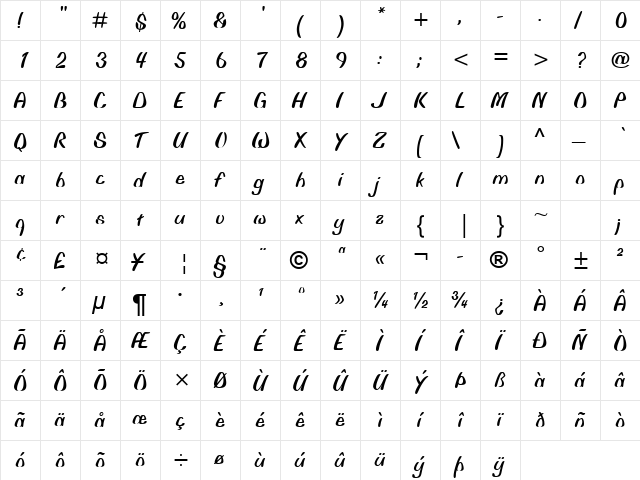
Biffo Becker Regular
Design Context for Biffo Becker Typeface
Biffo Becker is a composed and adaptable typeface that performs quietly and consistently across a wide range of design contexts.